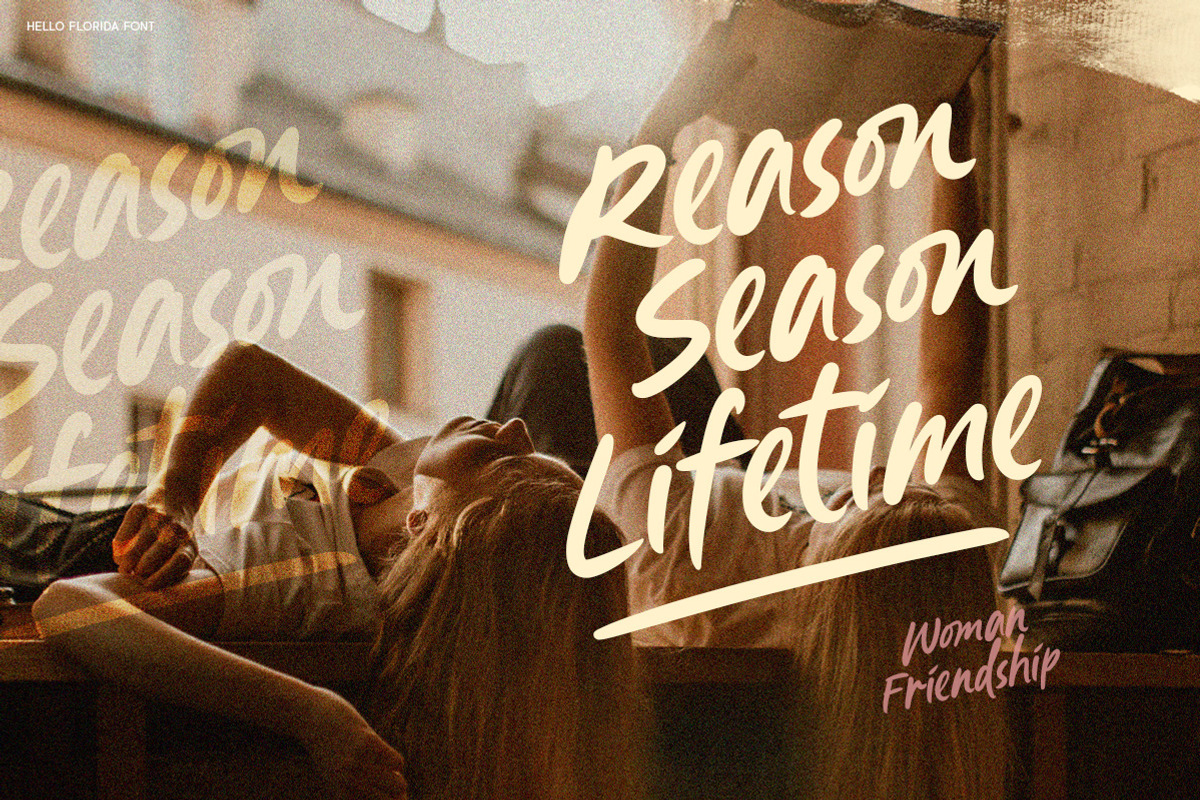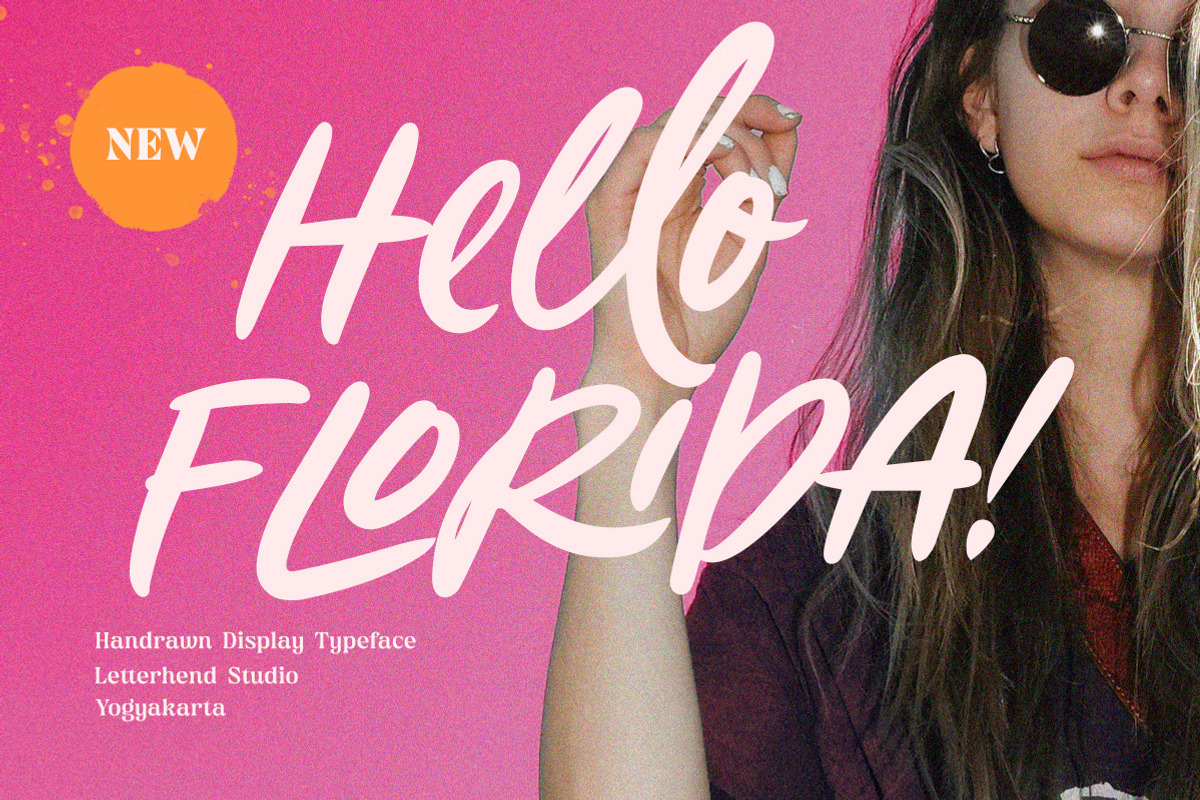
Hello Florida - Handrawn Font
Hello Florida is a handwritten font with modern and casual feel. Suitable to be used as tagline, quotes, slogan, title, etc. This font perfectly made to be applied especially in logo, and the other various formal forms such as invitations, labels, logos, magazines, books, greeting / wedding cards, packaging, fashion, make up, stationery, novels, labels or any type of advertising purpose.
- alternates
- swashes